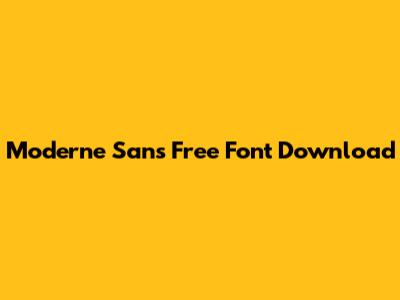
Moderne Sans: Free Font Download And Usage
What is Moderne Sans?
Moderne Sans is a typeface characterized by its clean lines, geometric shapes, and minimalist design. It embodies the essence of modern aesthetics, making it a versatile choice for various applications. Created with precision and attention to detail, Moderne Sans stands out for its legibility and visual appeal. Its simplicity ensures that it remains timeless and adaptable, fitting seamlessly into both digital and print media. The font family often includes different weights and styles, providing designers with flexibility to create visually appealing and cohesive designs. Moderne Sans is more than just a font; it's a design asset that enhances the overall look and feel of any project it graces. Whether it's for branding, web design, or print materials, Moderne Sans brings a touch of elegance and sophistication that elevates the final product. Its open and inviting letterforms make it a joy to read, while its modern construction ensures it remains contemporary and relevant. With its roots in minimalist design principles, Moderne Sans embodies a design philosophy that prioritizes clarity and efficiency, making it an excellent choice for projects aiming to communicate effectively and stylishly.
Key Characteristics
• Clean and Minimalist: Moderne Sans features clean lines and a minimalist design, making it easy on the eyes and perfect for modern aesthetics.
• Geometric Shapes: The font incorporates geometric shapes, giving it a structured and balanced appearance.
• Versatile: Suitable for a wide range of design projects, from logos and branding to web design and print materials.
• Legible: Designed with legibility in mind, ensuring readability in various sizes and contexts.
• Modern Aesthetic: Embodies the essence of modern design, making it a timeless choice.
How to Use Moderne Sans in Your Designs
So, you've downloaded Moderne Sans, awesome! Now, let's talk about how to actually use this fantastic font in your design projects. First off, think about the mood you're trying to create. Moderne Sans, with its clean and minimalist design, works wonders for projects that aim for a contemporary, uncluttered feel. Whether it's a sleek website, a modern logo, or even print materials like brochures and posters, this font can add a touch of sophistication. But here's the thing: don't just slap it on and call it a day. Consider the hierarchy of your text. Use Moderne Sans for headings to make them stand out, or pair it with a simpler serif font for body text to ensure readability. Adjust the font weight and size to create visual interest and guide the reader's eye. Pay attention to spacing, too. Proper kerning and leading can make a huge difference in how polished your design looks. And hey, don't be afraid to experiment! Try different color combinations to see how Moderne Sans interacts with various backgrounds. Think about using it in conjunction with geometric shapes or minimalist graphics to reinforce the overall modern aesthetic. Also, remember that less is often more. Moderne Sans shines when it has room to breathe, so avoid overcrowding your design with too many elements. By carefully considering these factors and playing around with different options, you can really make Moderne Sans sing in your designs. So go ahead, get creative, and have fun bringing your vision to life with this versatile font!
Tips and Tricks
• Logos and Branding: Use Moderne Sans to create a modern and memorable logo. Its clean lines will make your brand stand out.
• Web Design: Incorporate Moderne Sans into your website for headings, body text, and navigation menus. Ensure it's legible on various devices.
• Print Materials: Design brochures, posters, and business cards with Moderne Sans to maintain a consistent brand identity.
• Pairing: Pair Moderne Sans with a contrasting font, such as a serif, to create visual interest and balance.
• Hierarchy: Use different weights and sizes of Moderne Sans to establish a clear visual hierarchy in your designs.
Moderne Sans Alternatives
Okay, so maybe Moderne Sans isn't exactly what you were looking for. No sweat! The world of typography is vast and varied, and there are tons of other fonts out there that can give you a similar vibe. If you're digging the clean, minimalist look but want to explore some alternatives, here are a few suggestions to get you started. First up, there's Raleway. It's a sleek, sans-serif font that's super versatile and works well in both headings and body text. Plus, it's available on Google Fonts, so it's easy to access and use in web projects. Then there's Lato, another excellent sans-serif option that has a slightly warmer feel than Moderne Sans. It's incredibly readable and comes in a variety of weights, making it great for creating visual hierarchy. If you're after something with a bit more character, check out Montserrat. It's a geometric sans-serif that's inspired by early 20th-century urban typography, giving it a cool, vintage-meets-modern vibe. And last but not least, there's Open Sans, a classic sans-serif that's known for its neutrality and legibility. It's a safe bet for any project where you want a clean, unobtrusive typeface. All of these fonts share some of the same qualities as Moderne Sans – they're clean, modern, and versatile – but each has its own unique personality. So, give them a try and see which one best fits your design needs. Happy font hunting!
Font Recommendations
• Raleway: A versatile sans-serif font available on Google Fonts.
• Lato: A readable and warm sans-serif font.
• Montserrat: A geometric sans-serif font with a vintage-modern vibe.
• Open Sans: A classic and neutral sans-serif font.
In conclusion, Moderne Sans is a fantastic free font that can elevate your design projects with its clean, minimalist aesthetic. By understanding its characteristics, knowing where to download it safely, and learning how to use it effectively, you can make the most of this versatile typeface. And if Moderne Sans isn't quite the right fit, remember that there are plenty of alternatives to explore. Happy designing, and may your fonts always be stylish and on point!